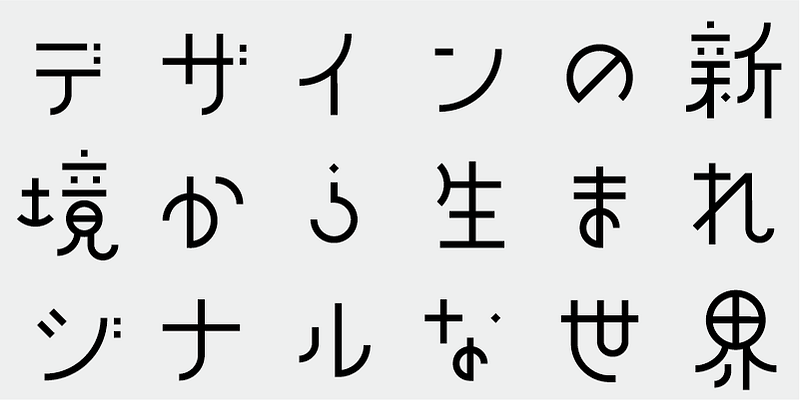
AB Suzume Font Free Download is a refined and modern Japanese typeface that exudes elegance and grace. The name "Suzume" (雀) translates to "sparrow," which is a symbol of freedom and joy in Japanese culture, and the font embodies that spirit with its flowing, airy strokes and organic feel. It’s perfect for creative projects that aim to convey a sense of lightness, movement, and charm, including branding, packaging, editorial design, and cultural materials.
AB Suzume Font Free Download features a well-balanced structure with subtle curves and clean lines, making it highly legible while retaining an artistic, hand-crafted look. The font supports Hiragana, Katakana, Kanji, and Latin characters, making it ideal for bilingual designs or any project that blends Japanese with Western text.
Elegant, graceful, and culturally rich—AB Suzume Font is perfect for designs that need a delicate and refined touch with a sense of joy and freedom.